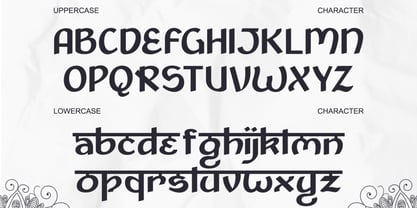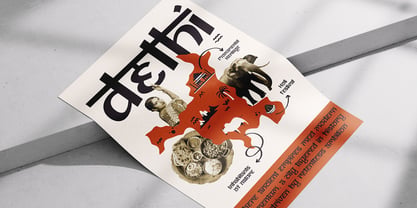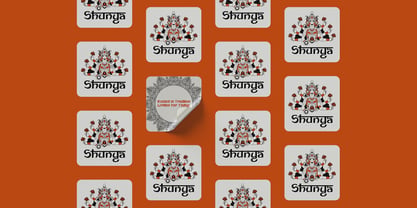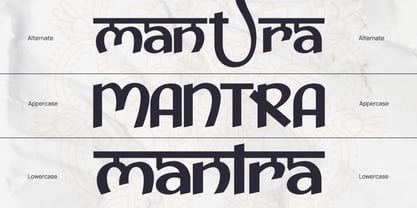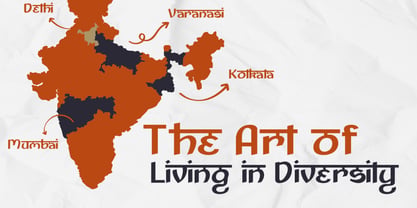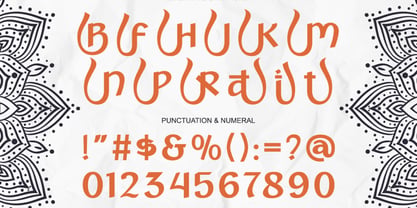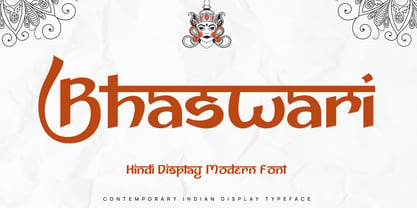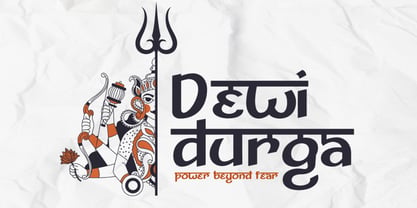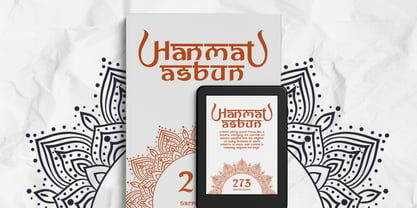
Bhaswari
Bhaswari is a contemporary Hindi-inspired display typeface that blends traditional Devanagari characteristics with modern typography aesthetics. Designed with elegant curves, balanced proportions, and a distinctive headline bar, this font captures the essence of Indian script while maintaining a clean and versatile display style. Bhaswari is designed for creative projects that require a modern yet culturally inspired typography style. It works especially well for Indian-themed branding, cultural events, festival posters, editorial design, packaging, travel promotions, restaurant branding, and creative headlines that celebrate Indian visual identity.